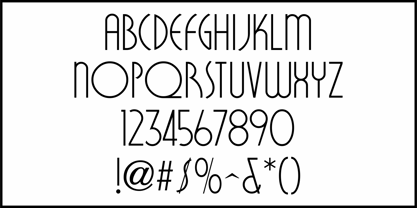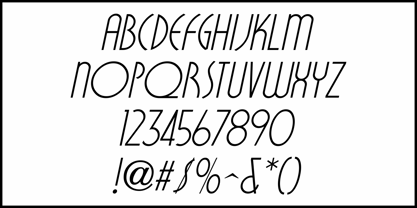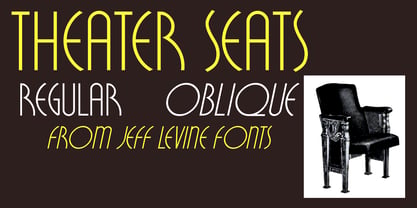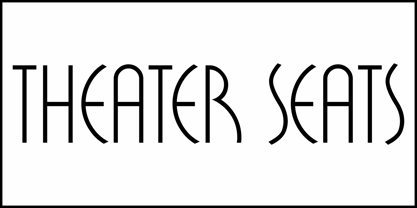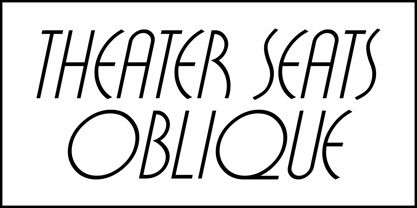
Theater Seats JNL
by Jeff Levine
In the 1937 edition of Film Daily's Year Book of Motion Pictures, and ad for International Seat Corp.featured stylish text hand lettered in a thin (monoline) Art Deco Sans Serif style.
This formed the basis for Theater Seats JNL, which is available in both regular and oblique versions.
About Jeff Levine
Jeff Levine has been in love with lettering since the third grade, when a schoolmate brought a lettering stencil into class. He has worked in both the graphics and music industries, and began his work with digital type via his own site, which hosted over one hundred free dingbat fonts until its retirement in 2009. Although these fonts were experimental at best, Jeff received "thank you" letters from points all over the world for making his designs available. Encouraged by these responses, Jeff decided to set his sights on creating interesting and commercially viable type fonts.